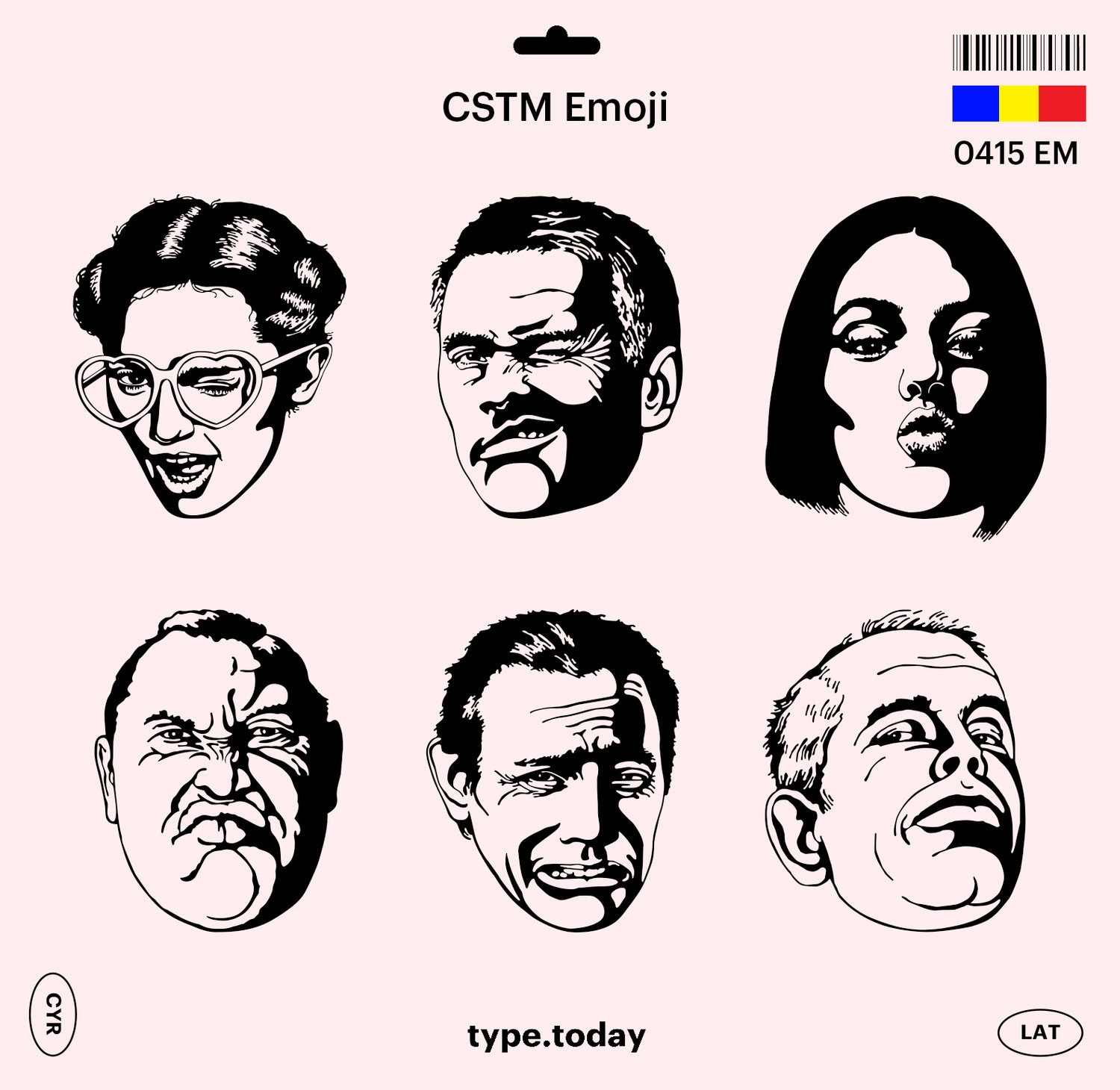
A new font — the CSTM Emoji character font is a set of emoticons drawn up by the artist Alexei Ostromentsky. The collection comprises illustrations conveying a range of emotions via facial expressions, gestures, and assorted objects. The symbols are arranged in the standard Unicode emoji cells and are duplicated in the cells for the English alphabet and numbers.